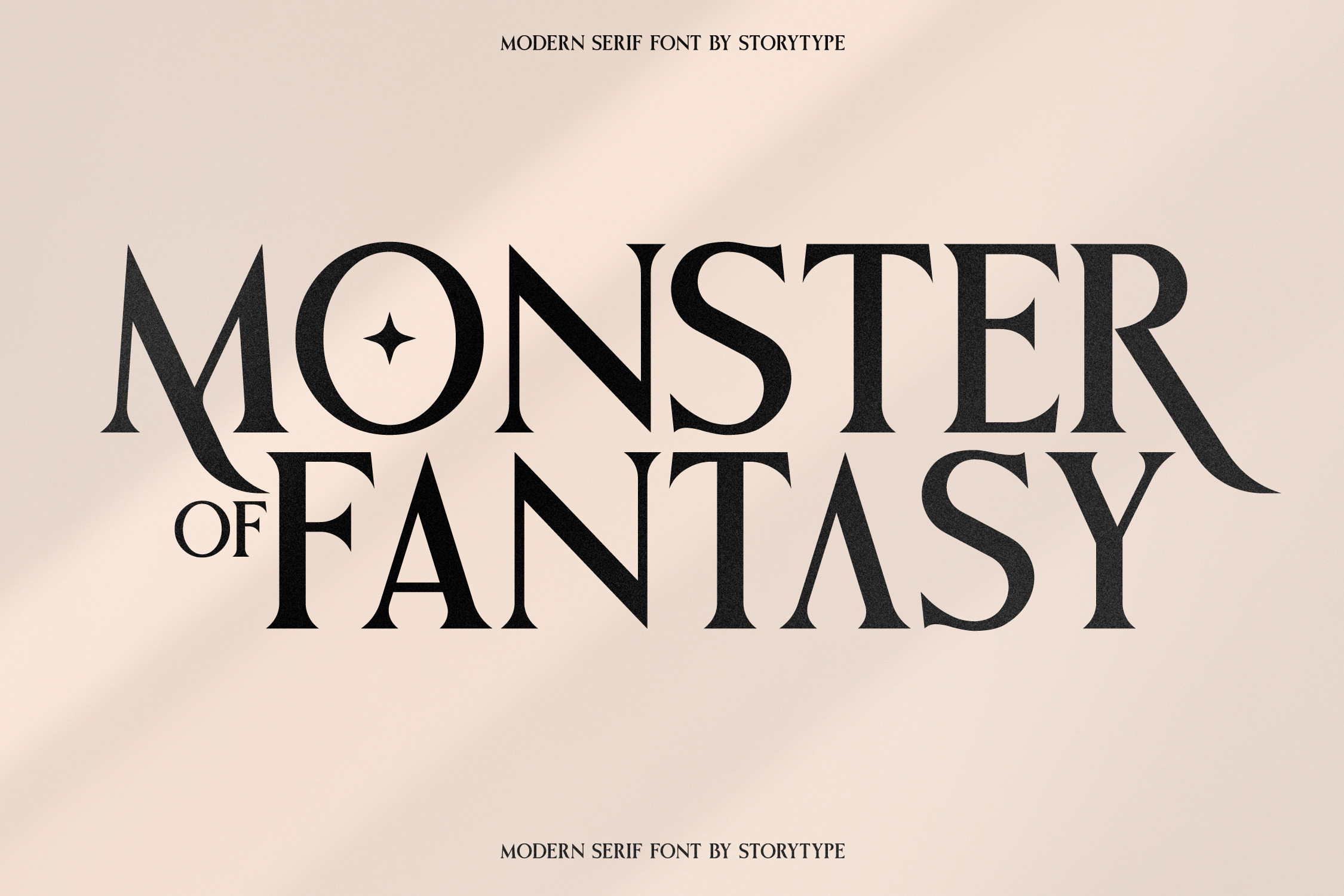
Monster Of Fantasy Modern Serif Font
Proudly present MONSTER OF FANTASY Typeface , created by Storytype, A serif modern and classic typeface that has own unique style & modern look. This typeface is perfect for an elegant & luxury logo, book or movie title design, fashion brand, magazine, clothes, lettering, quotes, and so much more.